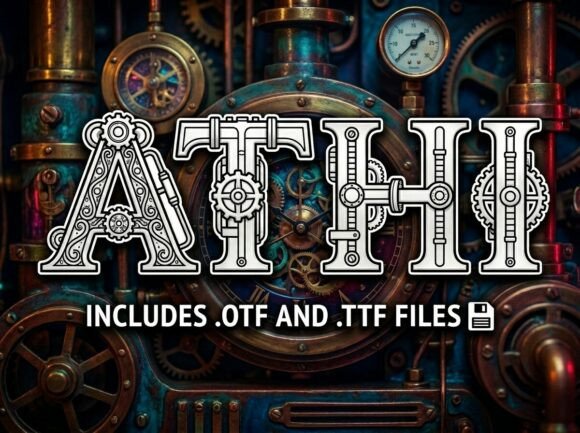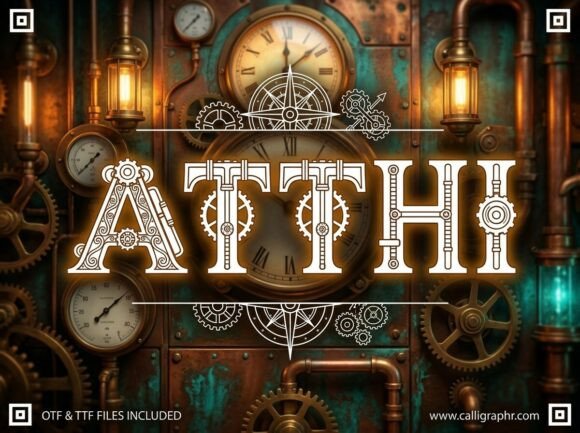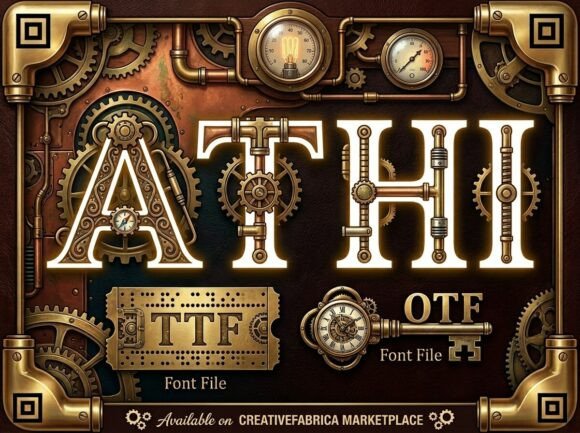
Introducing Atthi Font: The Ultimate Decorative Display Font
Are you tired of using the same old fonts for your designs? Look no further! Atthi Font is a stunning decorative display font that is sure to grab attention and take your creative projects to the next level. With its unique artistic elements and strong visual personality, this font is perfect for designers and crafters who want to break away from the ordinary.
What Makes Atthi Font Special?
Atthi Font is a versatile font that is designed to be the center of attention. Its unique artistic elements and strong visual personality make it perfect for bold headlines, artistic logos, and creative packaging. Whether you’re a designer, craft maker, or DIY enthusiast, this font is sure to add a touch of elegance and sophistication to your projects.
Key Features of Atthi Font
- ALL-CAPS (Uppercase Only) Display Typeface: Atthi Font is specifically designed for high-impact headlines, logos, and decorative initials where every letter is a work of art. Please note that this font does not include lowercase letters.
Atthi Font is perfect for designers and crafters who want to add a touch of elegance and sophistication to their projects. Whether you’re creating a logo, packaging, or a DIY craft, this font is sure to make your project stand out. Its versatility and professional finish make it ideal for a wide range of applications, including:
- Bold Headlines: Use Atthi Font to create eye-catching headlines that grab attention.
- Artistic Logos: Create stunning logos that showcase your brand’s personality.
- Creative Packaging: Add a touch of elegance and sophistication to your packaging designs.
Why Choose Atthi Font?
With so many fonts available, why choose Atthi Font? Here are just a few reasons:
- Unique and Artistic: Atthi Font features unique artistic elements that will set your designs apart from the rest.
- Professional Finish: This font has a professional and polished finish that is perfect for high-end designs.
- Versatile: Atthi Font can be used for a wide range of applications, from bold headlines to artistic logos and creative packaging.
- Experiment with Different Sizes: Atthi Font looks great in large sizes, but it can also be used for smaller designs.
- Play with Colors: Try using different colors to add depth and interest to your designs.
- Combine with Other Fonts: Atthi Font can be paired with other fonts to create a unique and visually appealing design.